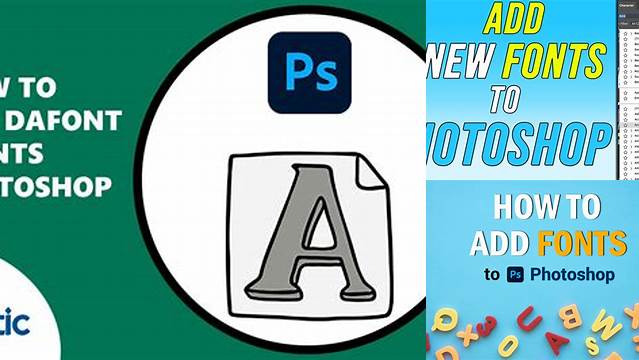
DaFont To Photoshop: Easy Font Installation Guide
Hey guys! Ever wondered how to get those super cool fonts from DaFont into your Photoshop game? You're in the right place! Installing fonts from DaFont, or any other font website for that matter, into Photoshop is a piece of cake. This guide will walk you through the whole process, step by step, ensuring you can effortlessly add new fonts to your design arsenal. We'll cover everything, from downloading the fonts to making sure they appear in Photoshop. So, grab a coffee, and let's dive in!
Choosing the Right Font
Selecting the right font is like choosing the right outfit – it can make or break your design! Fonts communicate different moods and styles, so consider the message you want to convey. For example, a playful font might suit a children's book, while a more formal font is better for professional documents. DaFont offers a huge variety, so use the categories and search filters to narrow down your options. Think about readability, too, especially for body text. It doesn't matter how cool a font looks if nobody can read it! Ensure that your font choice complements your overall design and enhances the user experience. The right font choice will make your design stand out. Remember, the right font can significantly enhance the effectiveness of your design projects. With the proper font, your content will be easier to read. This leads to a better user experience.
Installing Fonts on Windows: The Easy Way
Okay, Windows users, now for the installation. There are a couple of ways to install fonts on Windows. The easiest method is to right-click on the font files (.TTF or .OTF) and select "Install". Windows will automatically install the font for you, making it available for all applications, including Photoshop. You can also install fonts by opening the font file. Windows will display the font in a window, and you can click the "Install" button. This method is good too. After you've installed the font, you might need to restart Photoshop if it was already open to see the new font. It's important to install fonts for all users, especially if you share your computer. This ensures that everyone on the computer has access to the fonts. This part is pretty easy, just make sure the system has done its job by installing the fonts. After you install the font, you can see it on all the apps.
Installing Fonts Using the Font Settings
Another way to install fonts on Windows is through the Font Settings. You can access Font Settings by typing "Fonts" in the Windows search bar and selecting "Font settings." In the Font Settings window, you can drag and drop the font files (.TTF or .OTF) into the designated area to install them. This method provides a centralized location for managing your installed fonts. This method is also good to keep organized. You can see all the fonts installed from this settings tab. This is another alternative if you have any problems with the other method. This is a good method to solve potential issues with the other options.
Troubleshooting Font Installation on Windows
If you have any problems, here are some common troubleshooting tips for Windows users. If the font doesn't appear in Photoshop, try restarting Photoshop. If that doesn't work, restart your computer. Sometimes, Windows needs a complete restart to recognize new fonts. If you are still having problems, ensure the font file is not corrupted. Try downloading the font again from DaFont. If you have installed the font and Photoshop is still not displaying it correctly, then try checking the font files. Try to install the fonts again, but this time, follow the instructions for each step to ensure that everything is done correctly. Problems can be solved, just follow these suggestions.
Conclusion: Unleash Your Design Creativity
So, there you have it! You've learned how to download, extract, and install fonts from DaFont and use them in Photoshop. Now go out there and create some amazing designs! Remember to respect the font licenses, organize your fonts, and have fun experimenting with different styles. The process is super easy. The best part is the result. Now that you have all the tools, you can start designing. Keep creating, and keep experimenting with different fonts and designs. Enjoy your design journey! Always be creative! Keep learning, and keep creating. You got this!